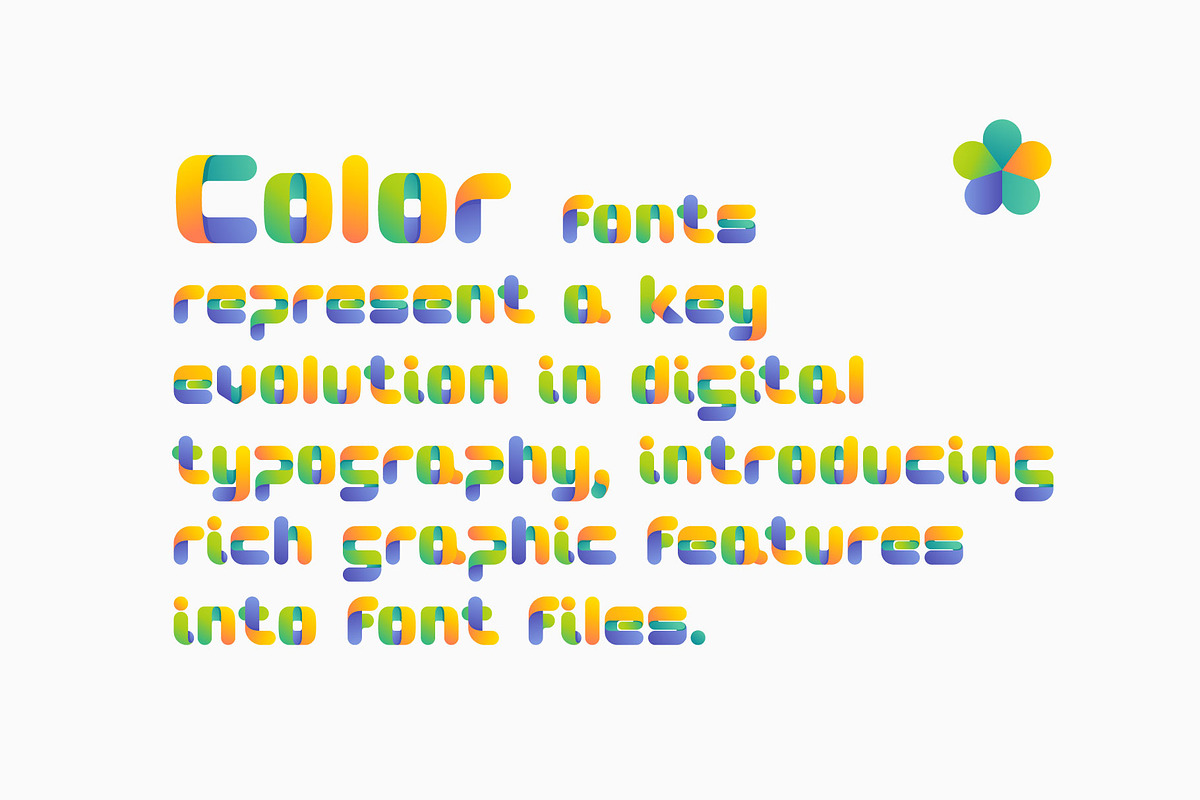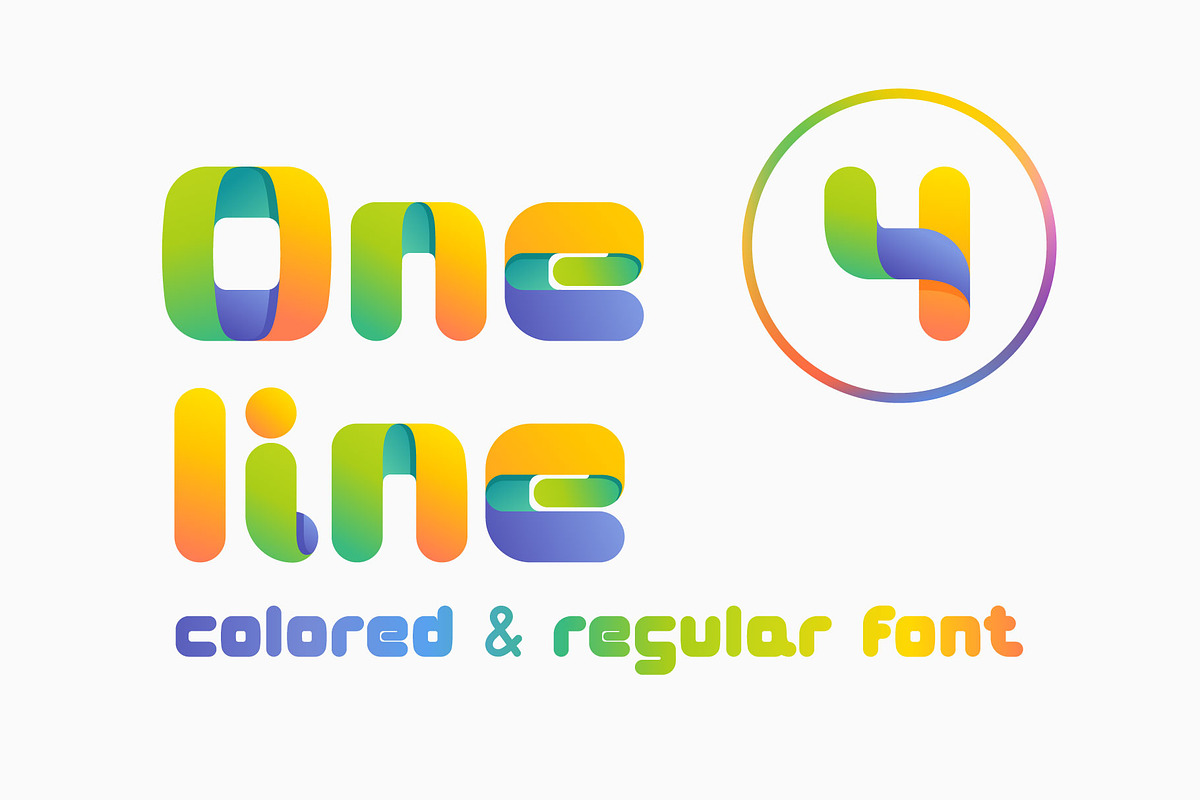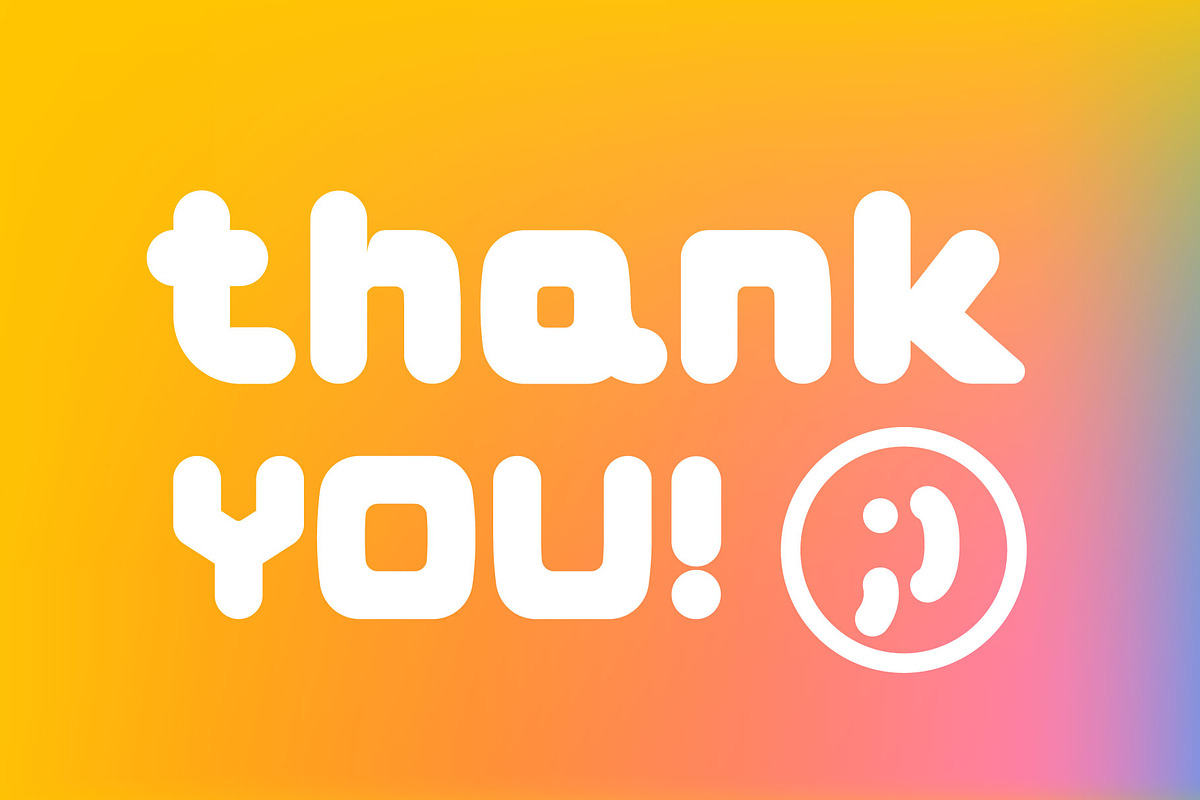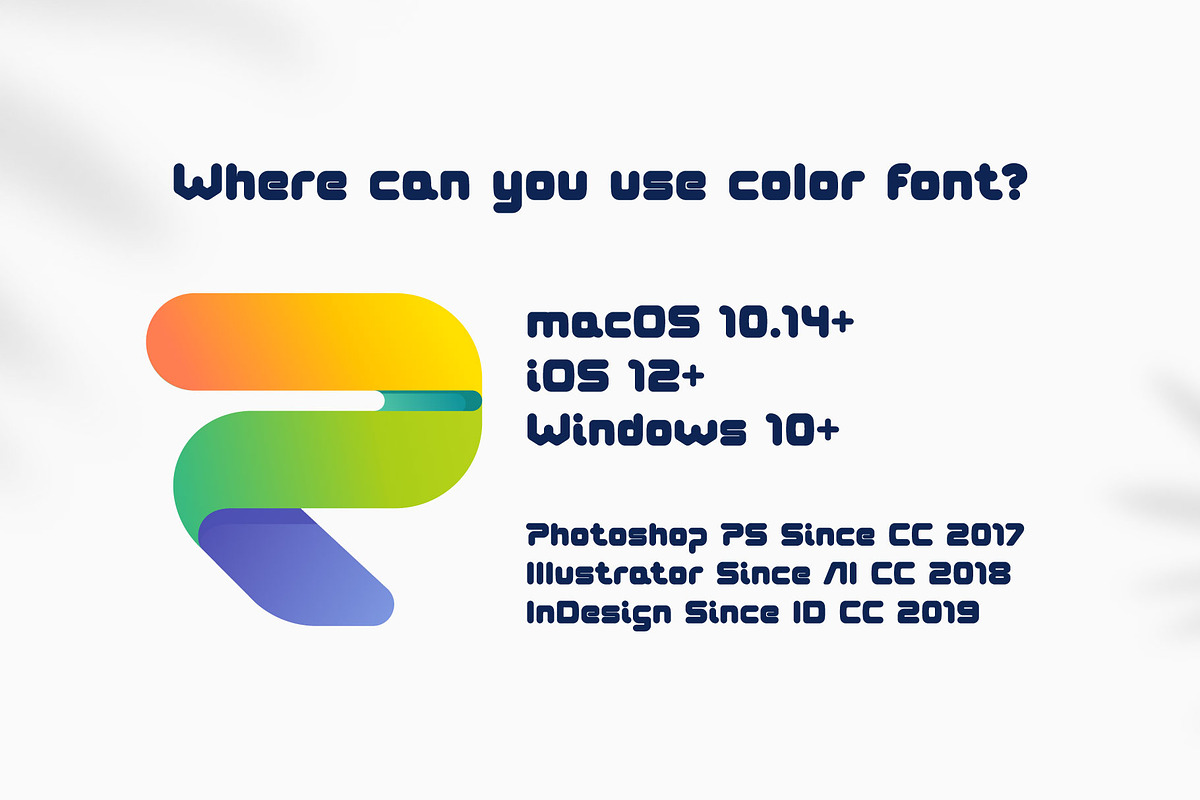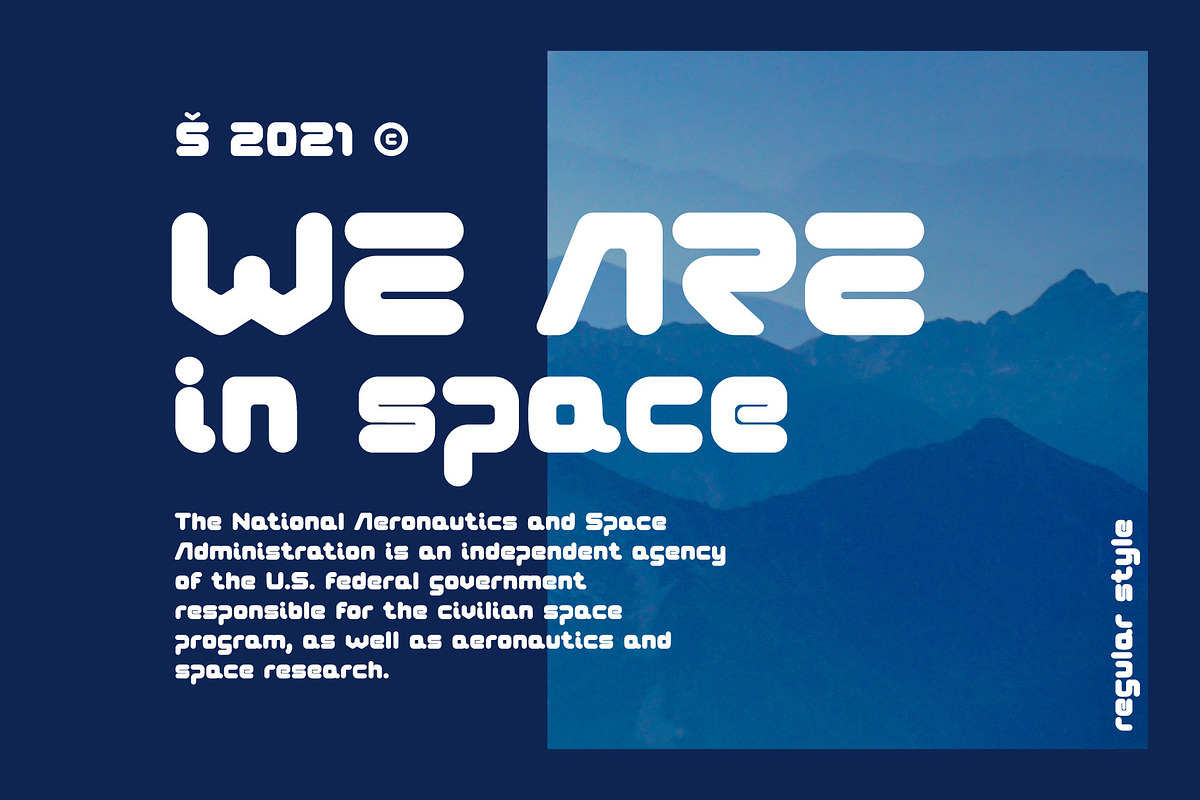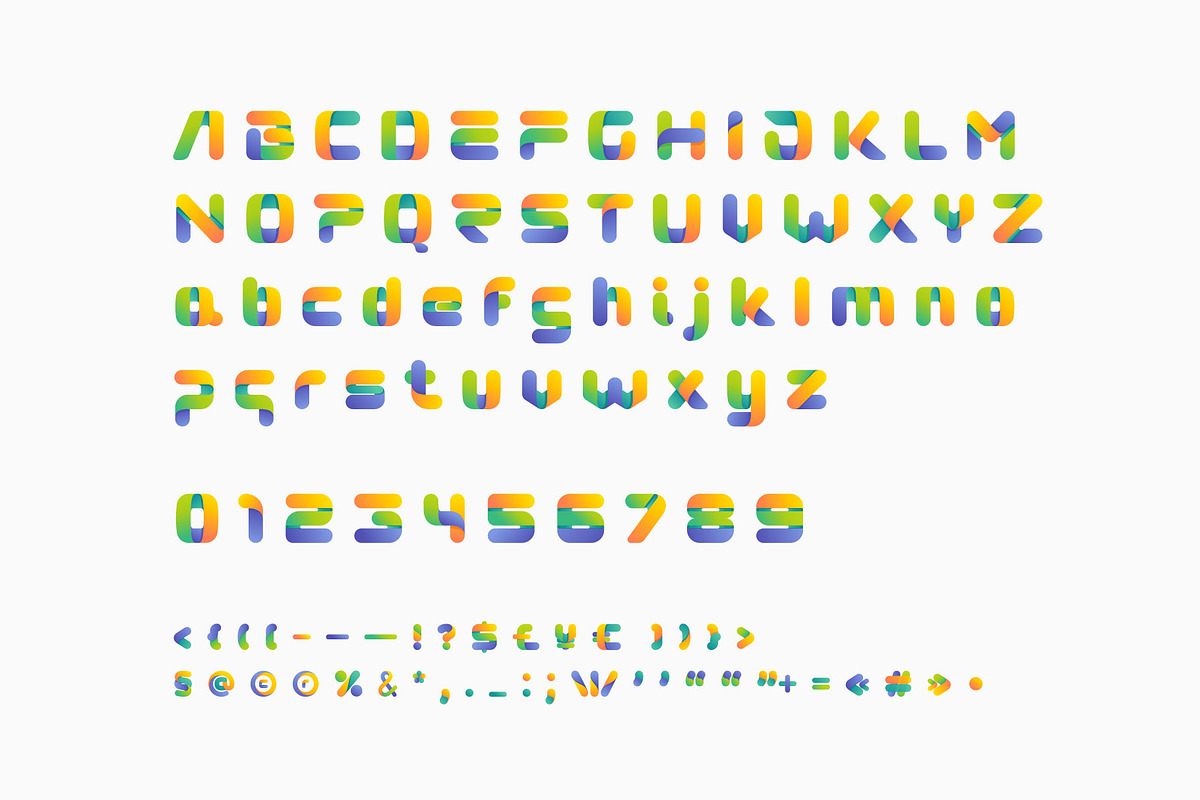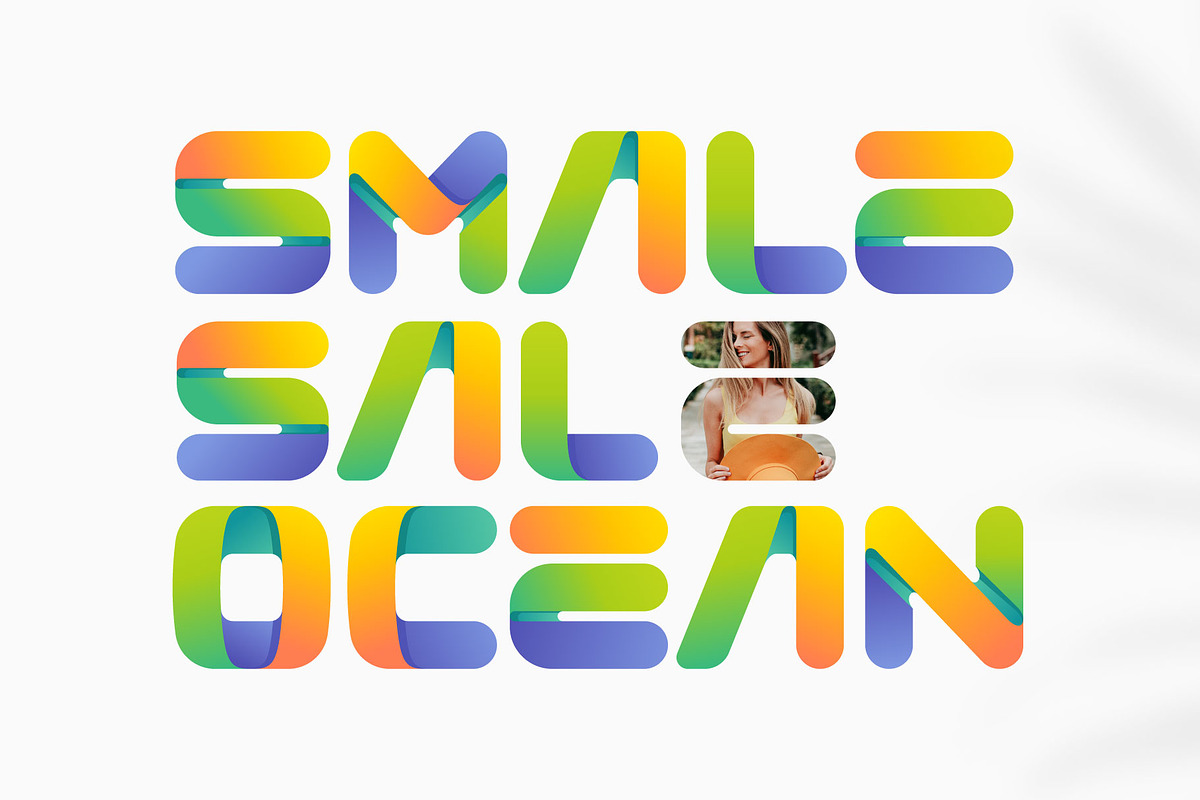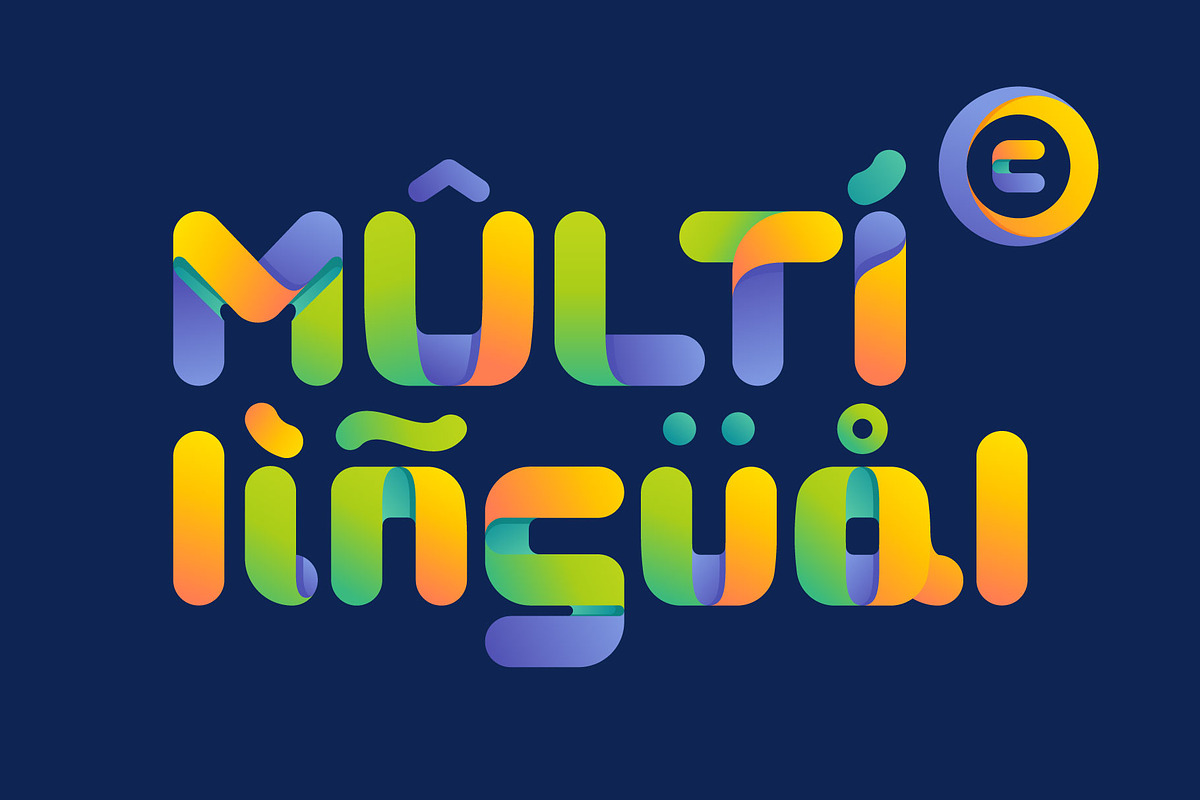
One line 4
One line 4 is a display font family with regular and colored styles. The letters from this font are drawn with only one line and then brightly colored.
- Colored and regular styles
- Uppercase and lowercase glyphs
- Numbers and multilingual support